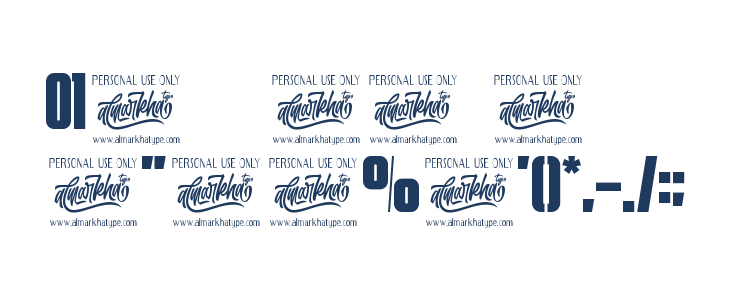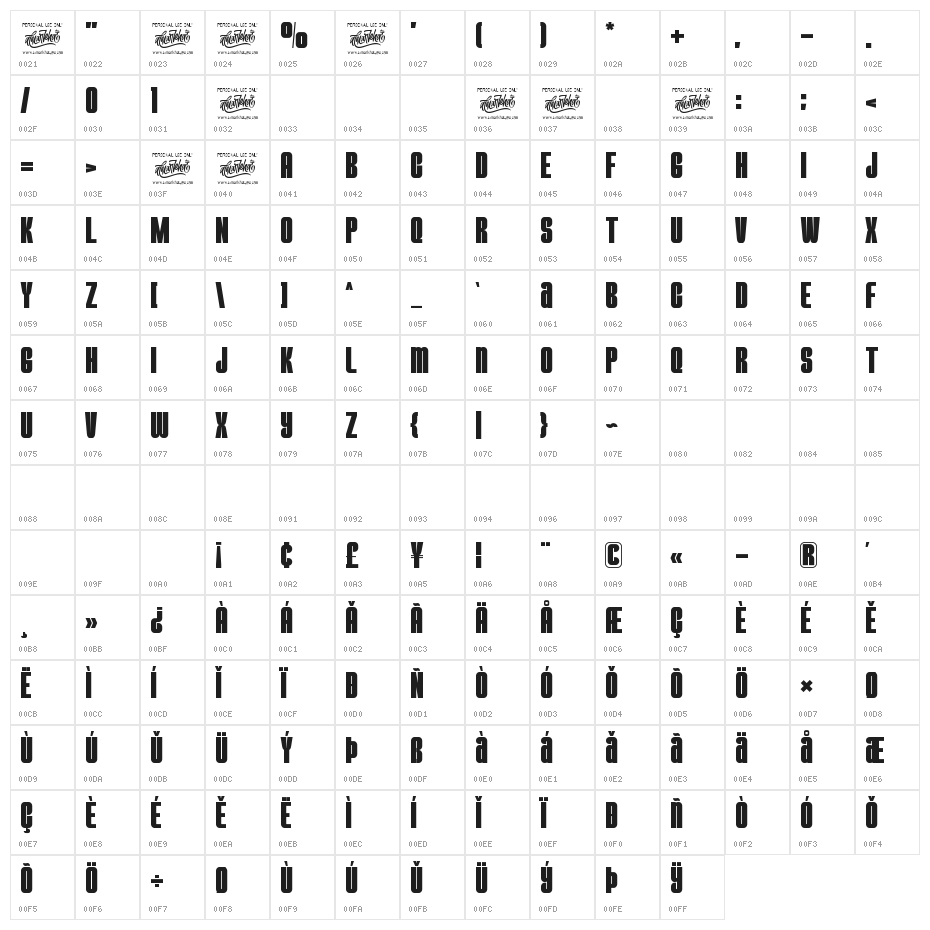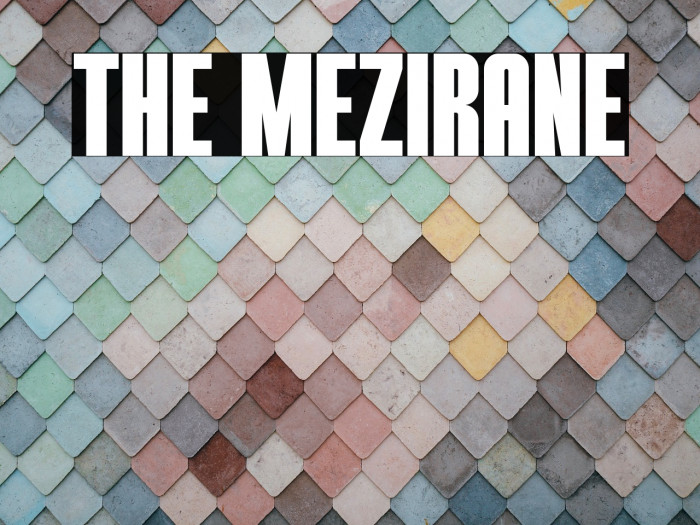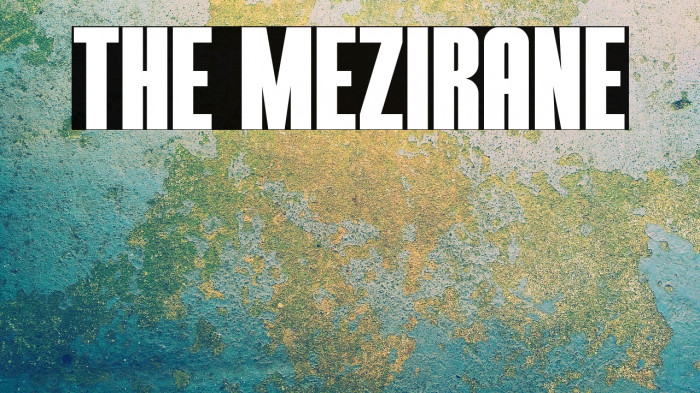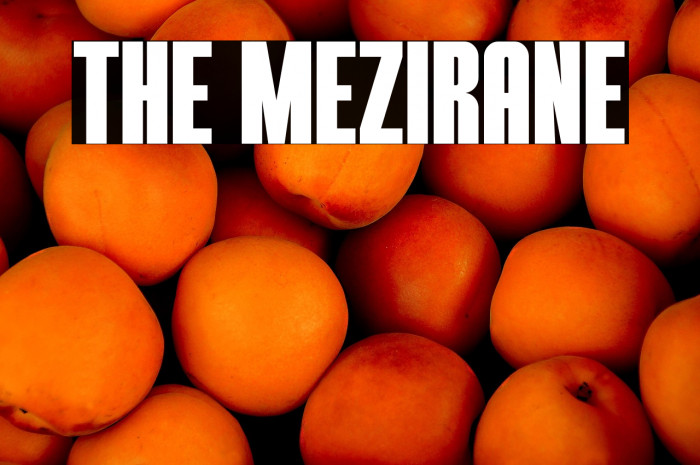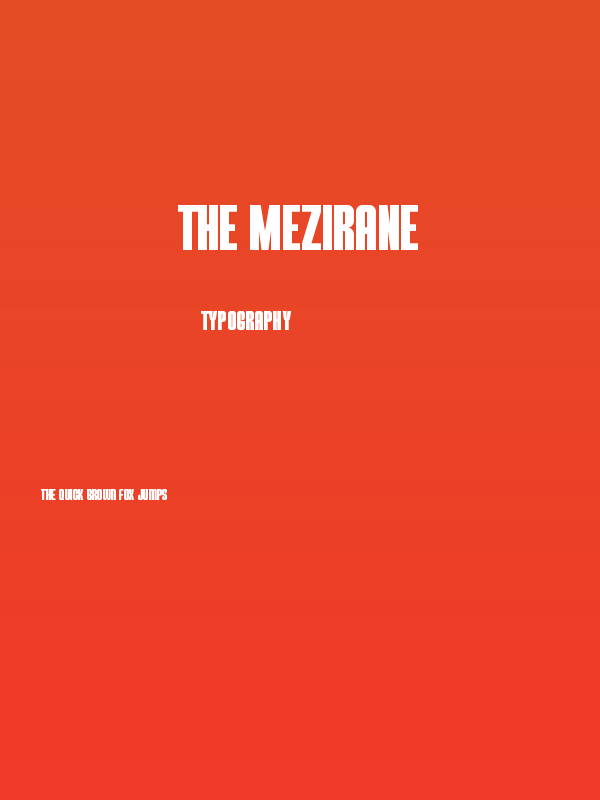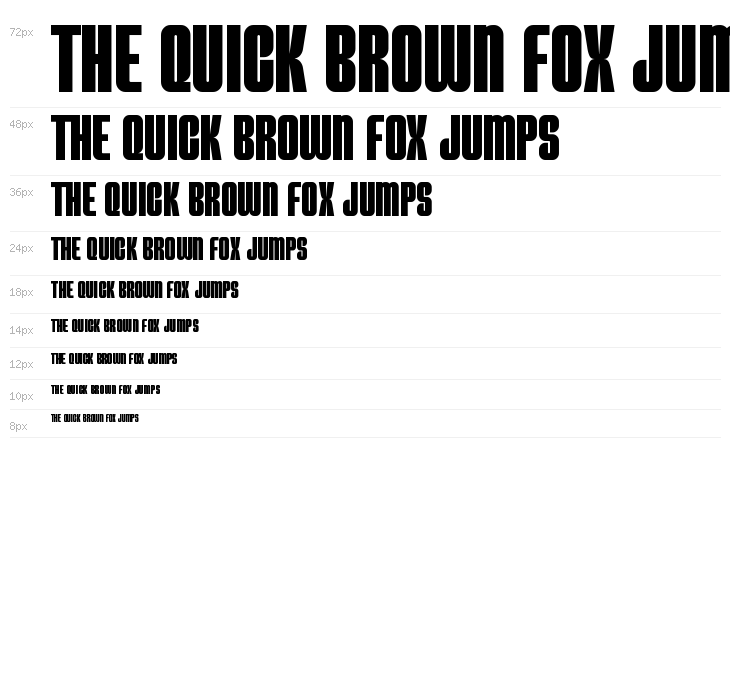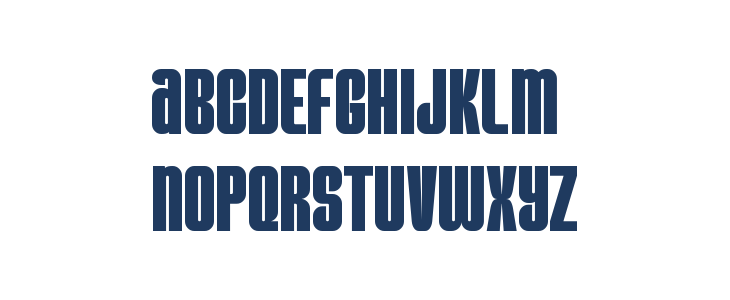
THE MEZIRANE Font
THE MEZIRANE Description
This font features a bold and impactful design with strong, thick strokes that create a commanding presence. The uppercase and lowercase letters are consistent in their weight, providing a uniform appearance. The characters are tightly spaced, enhancing the boldness and making it ideal for attention-grabbing headlines. The font's geometric structure and sharp edges give it a modern and assertive style, suitable for projects that require a strong visual impact. The numbers and special characters maintain the same bold characteristics, ensuring consistency across all text elements.
| Proposed Projects | Ideal for headlines, posters, branding, and any project needing a bold, impactful typeface. |